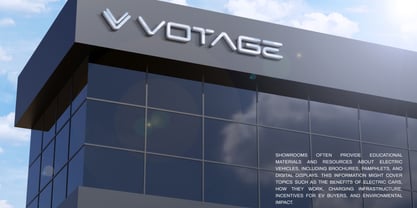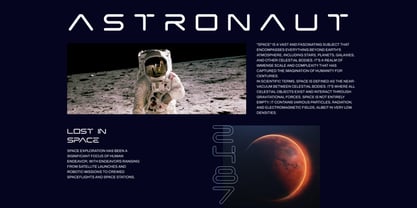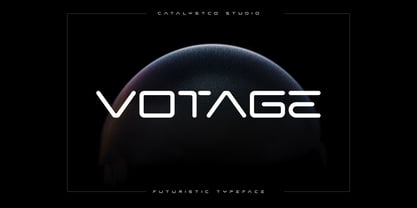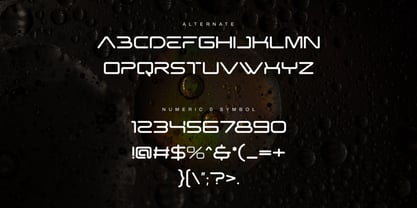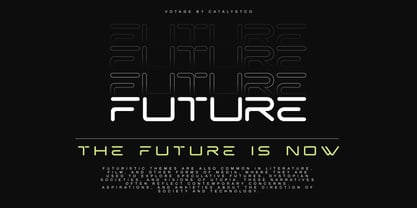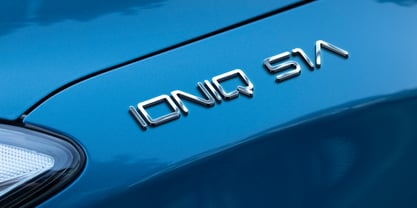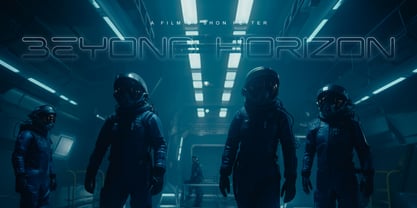
Votage
by Catalystco Std
Votage is a futuristic sans serif display font designed with sleek geometry and modern tech aesthetics. With distinctive rounded terminals, sharp angles, and stylistic alternates, this typeface balances precision with bold visual impact. It includes uppercase characters, numerals, punctuation, and a full alternate set to expand creative possibilities. Votage is perfect for designers and creatives who want a bold, modern typographic voice with a futuristic edge. Its streamlined shapes and tech‑inspired style make it ideal for startup branding, digital product UI, tech events, gaming visuals, movie posters, advertising campaigns, product packaging.